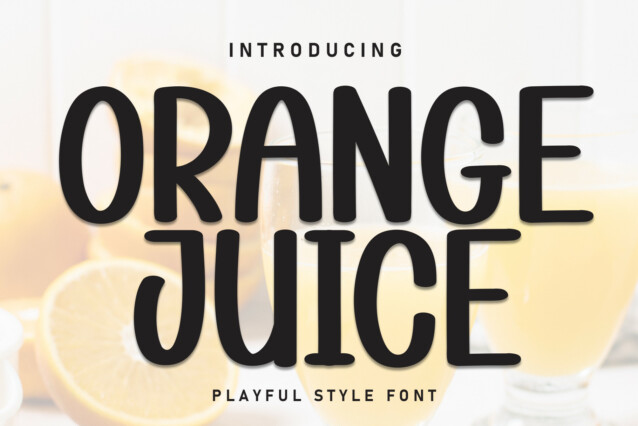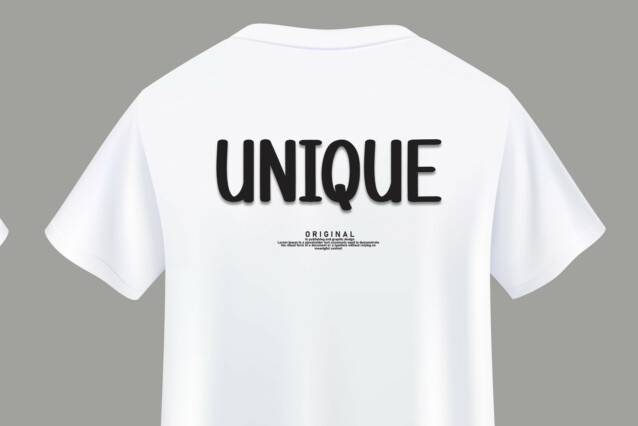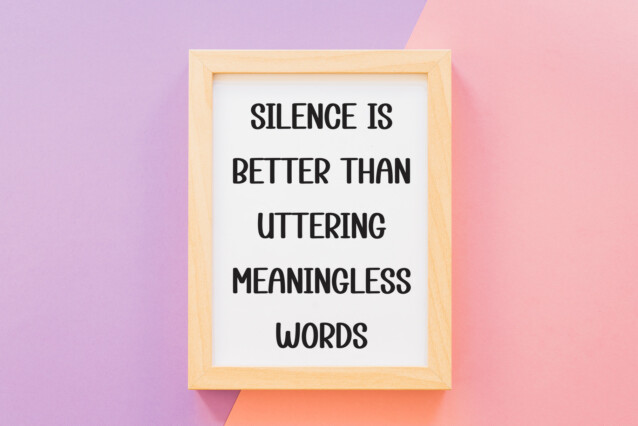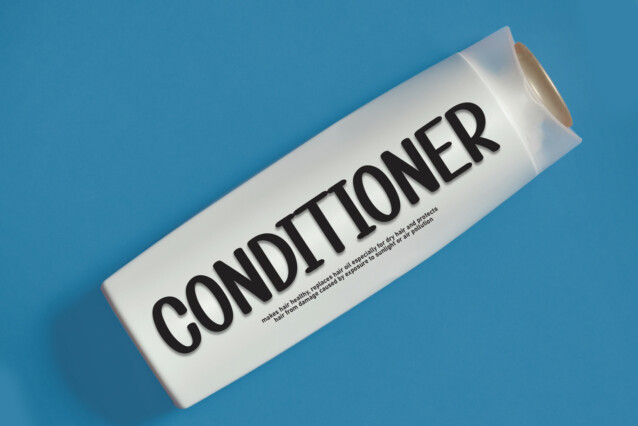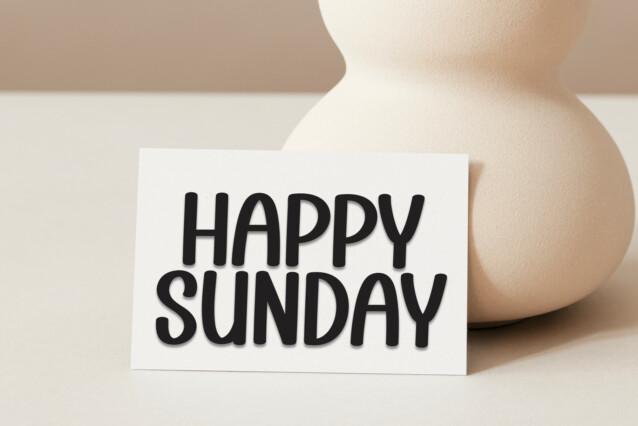
Orange Juice Display Font
Orange Juice Display Font is a sweet and friendly handwritten font. Its natural and unique style makes it incredibly fitting to a large pool of designs. The only limit is your imagination!